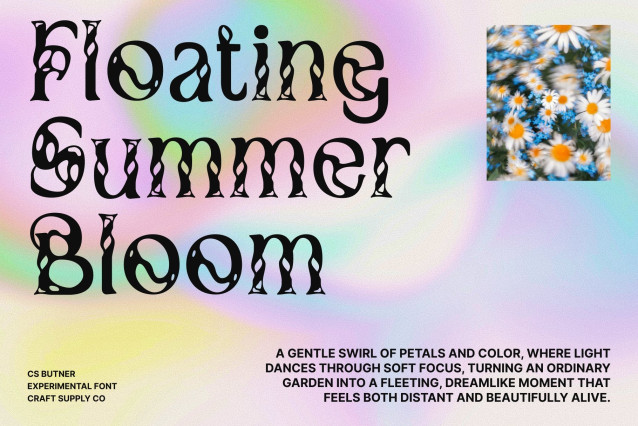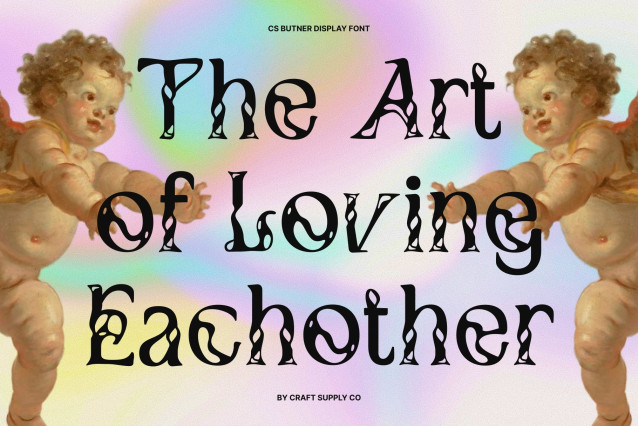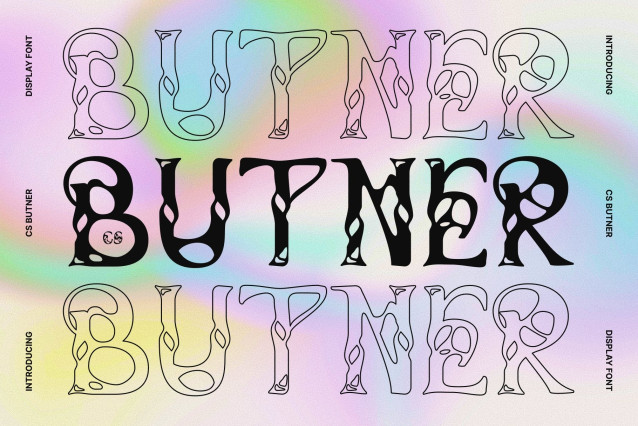
CS Butner – Experimental Serif with Trippy Artistic Energy
Experimental Serif with Unconventional Character
This is an experimental serif font that celebrates creativity through unexpected and expressive letterforms. Designed to stand out, this typeface transforms traditional serif structure into something bold, artistic, and full of personality. Each character feels dynamic and distinctive, giving your typography a striking visual voice.
Trippy Shapes with Artistic Expression
What makes this font truly special is its playful and unconventional shapes. The letterforms bend, stretch, and evolve in ways that feel imaginative and artistic, creating a trippy aesthetic that immediately captures attention. This expressive design invites viewers to pause, explore, and engage with your message.
Bold Personality for Creative Layouts
This font brings strong character to every composition. Its unique shapes create rhythm and movement across headlines and layouts, making designs feel lively and modern. The font works beautifully when paired with minimal elements, allowing its artistic personality to become the centerpiece of the visual experience.